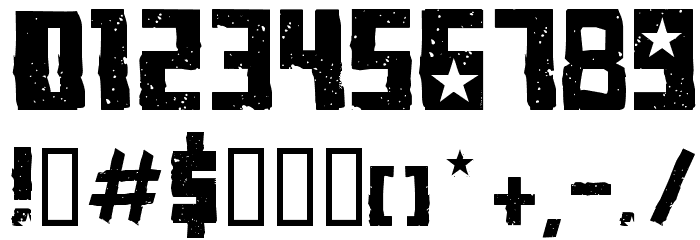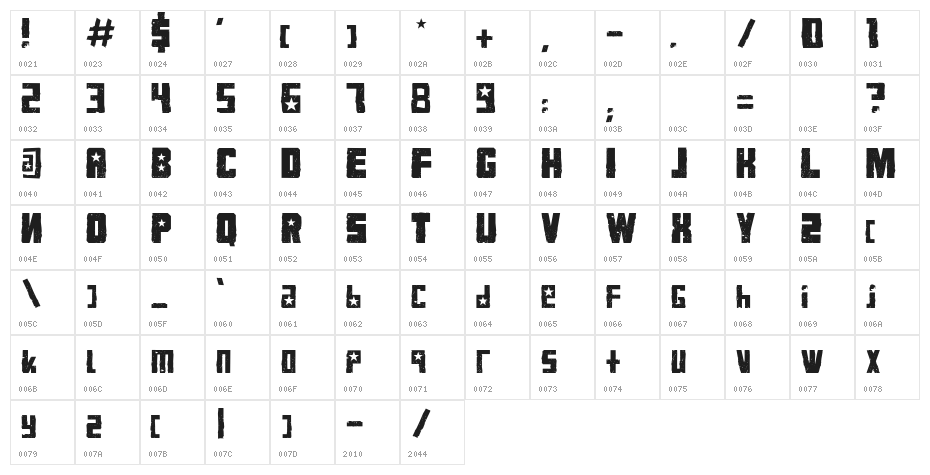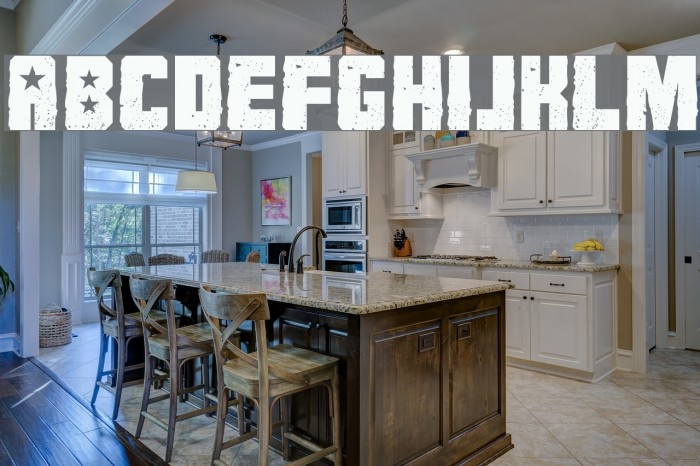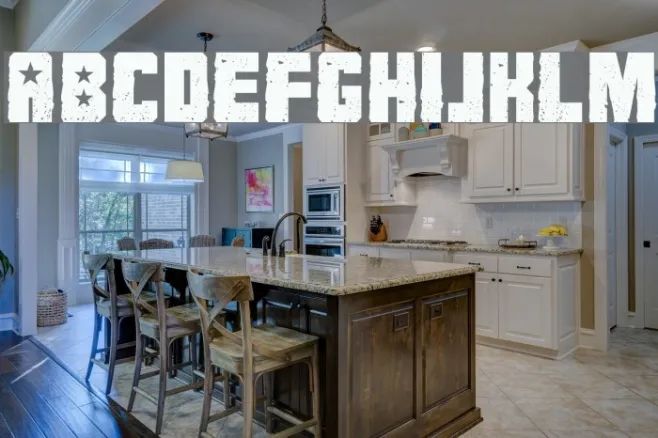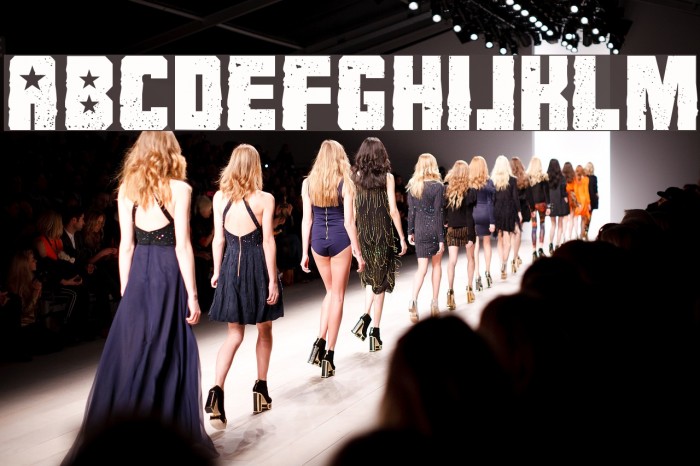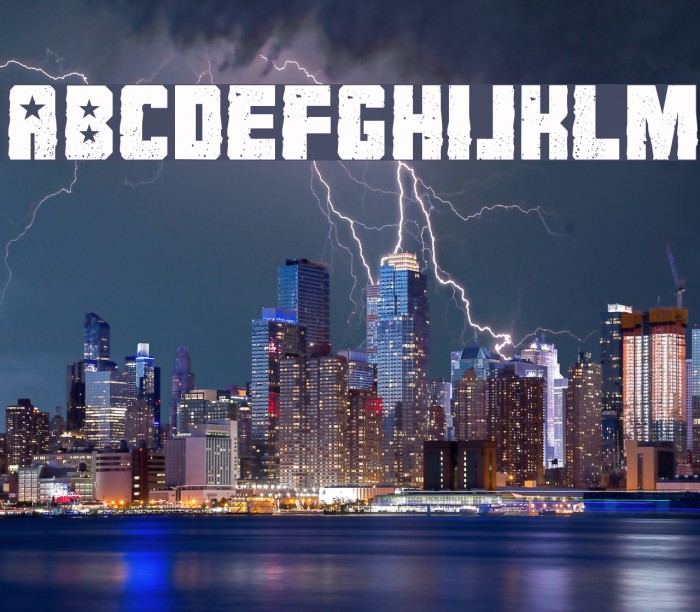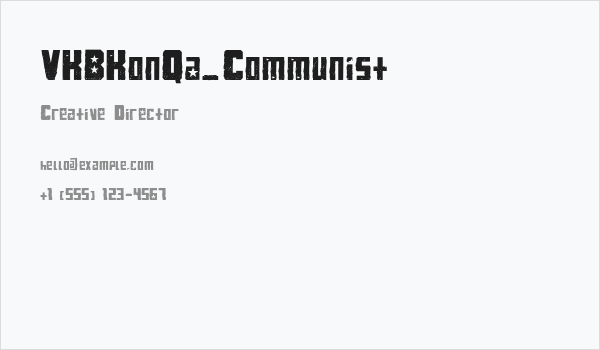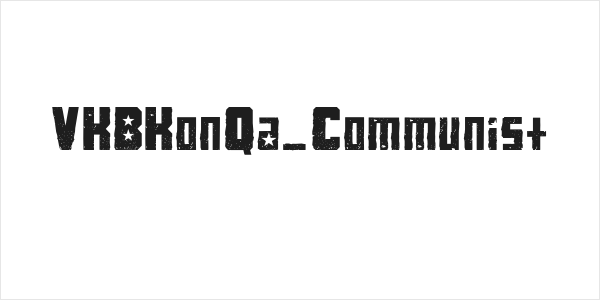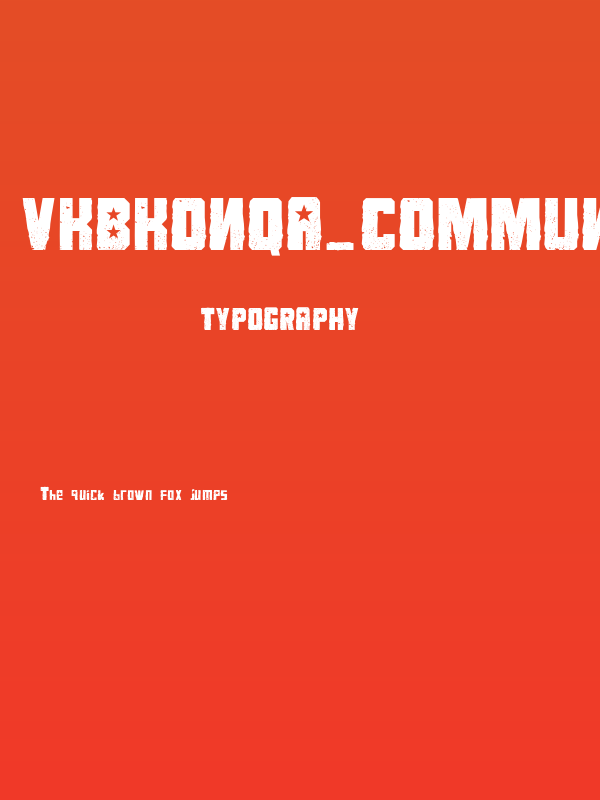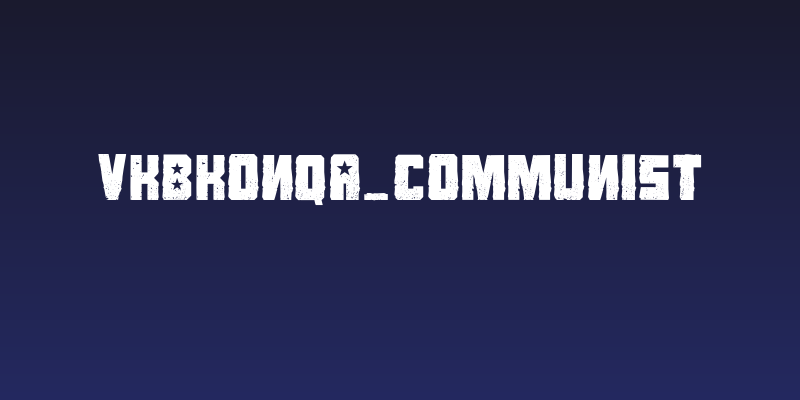
VKBKonQa_Communist Font
VKBKonQa_Communist Description
This font features a bold, distressed style with a rough, textured appearance that gives it a rugged, industrial feel. The uppercase and lowercase letters are designed with a blocky, geometric structure, and some characters include star motifs, adding a unique decorative element. The numbers and special characters maintain the same distressed texture, ensuring consistency across all glyphs. This font's boldness and distinctive style make it stand out, ideal for projects that require a strong visual impact.
| Overall Style | Industrial, Rugged |
| Proposed Projects | Ideal for posters, album covers, branding for edgy or industrial-themed products, and any design needing a strong, impactful typeface. |